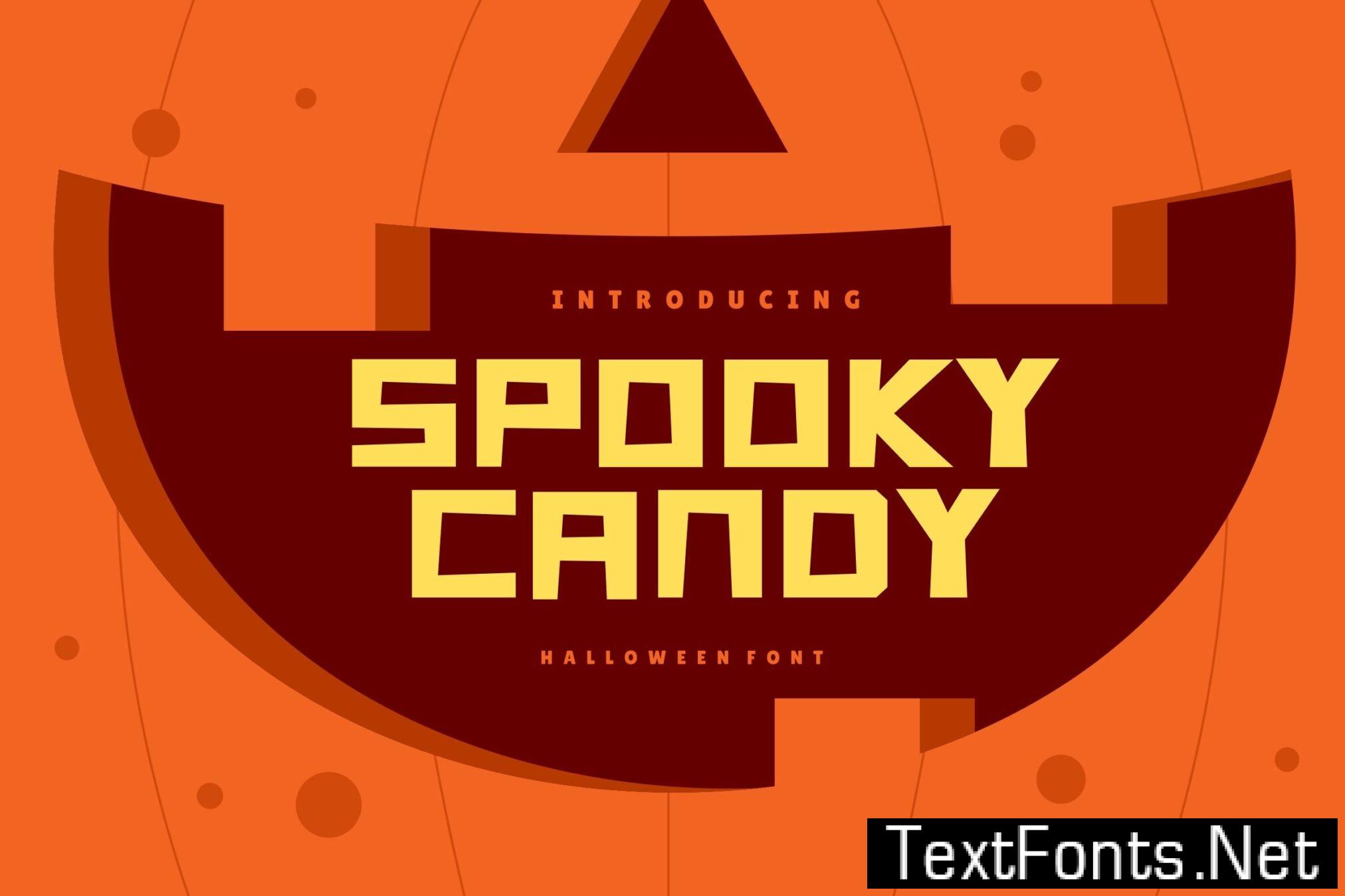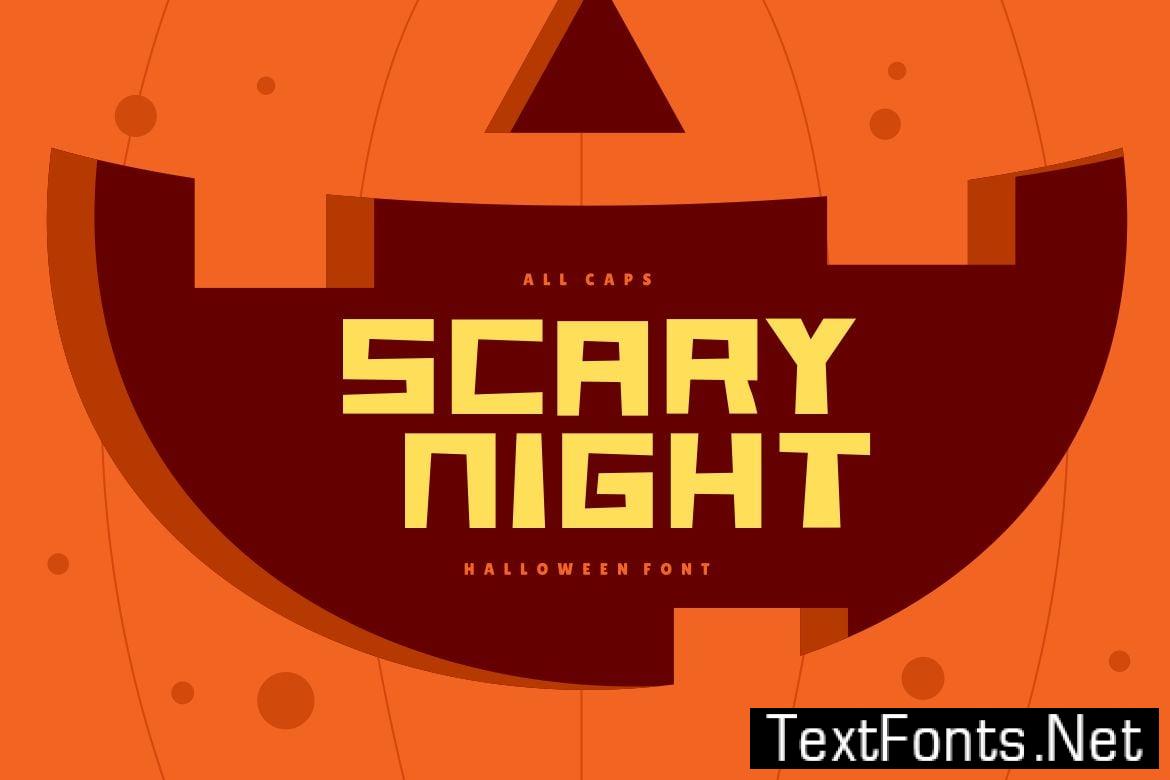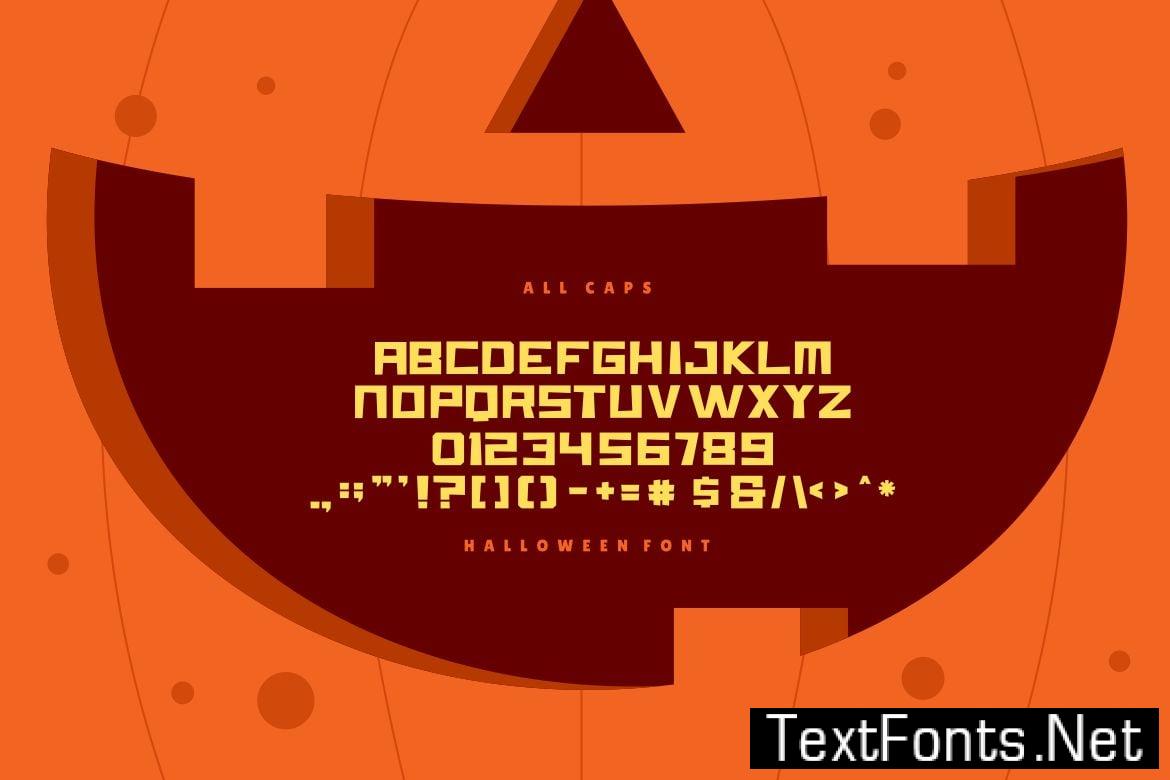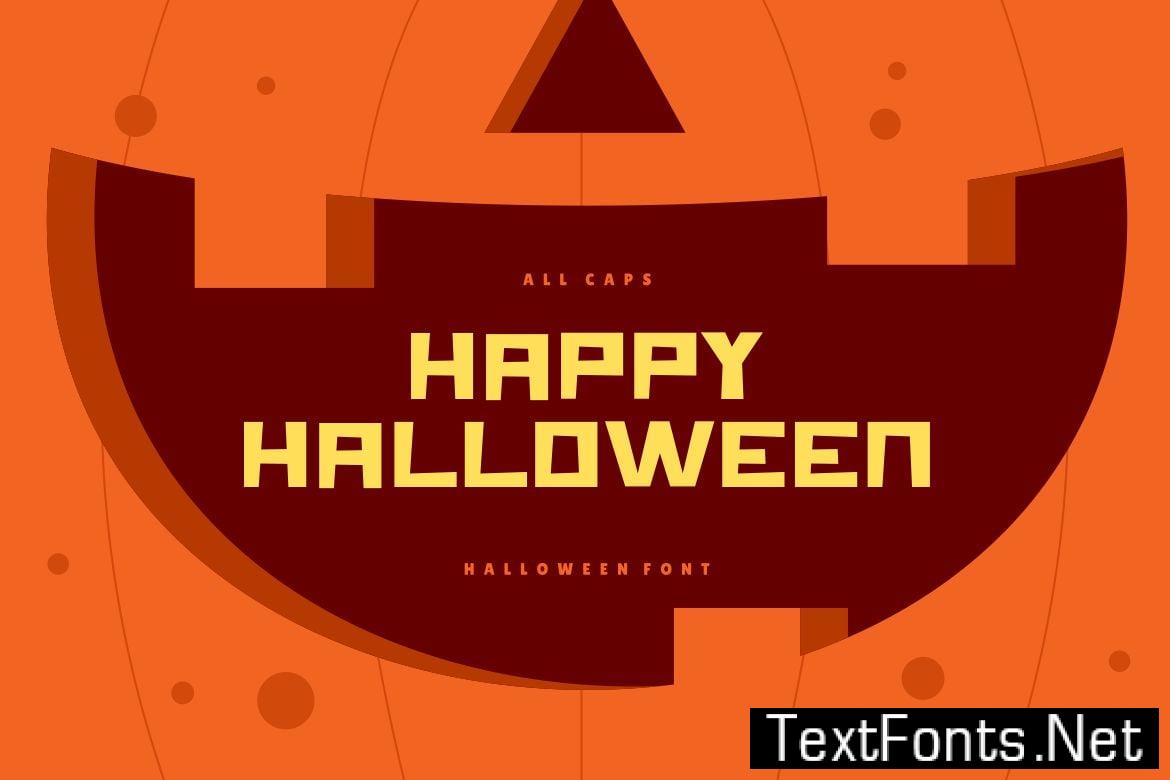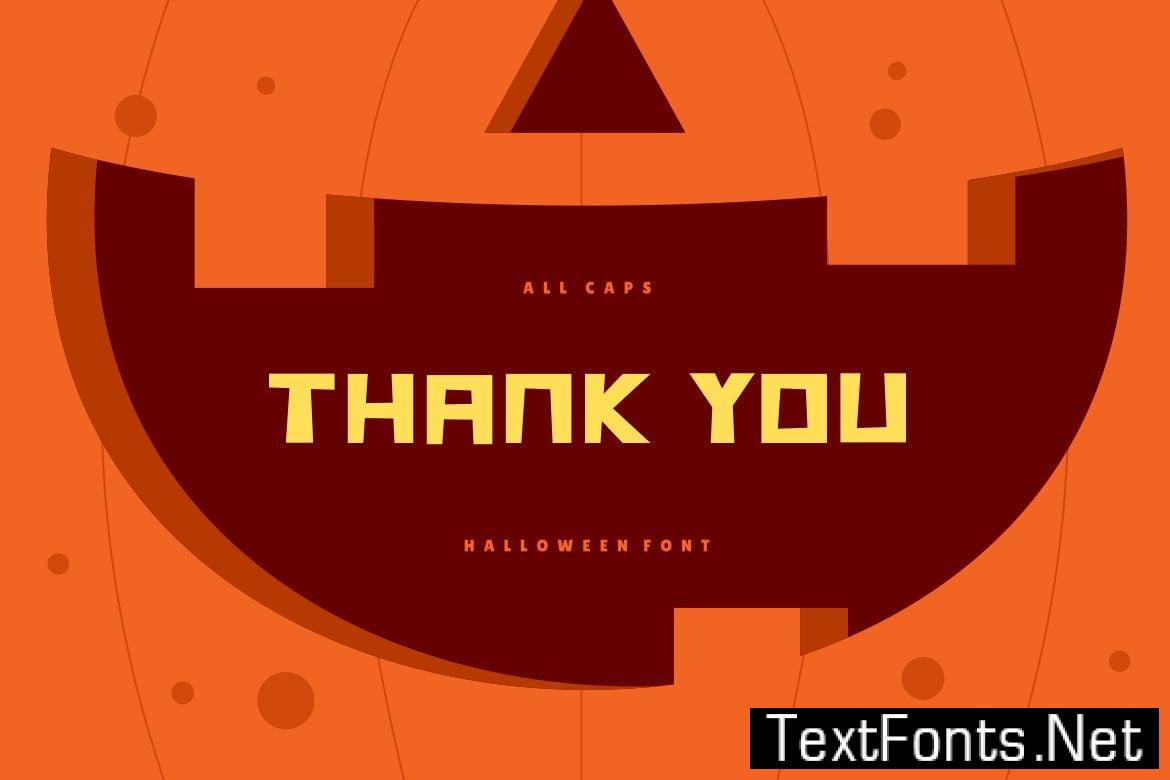
Introducing our new product **Spooky Candy** – Halloween Font
**Spooky Candy** is a bold, modern display font with playful flair, ideal for attention-grabbing headlines, logos, and diverse design projects. Versatile and readable in both digital and print, **Spooky Candy** adds a dynamic touch to your message.